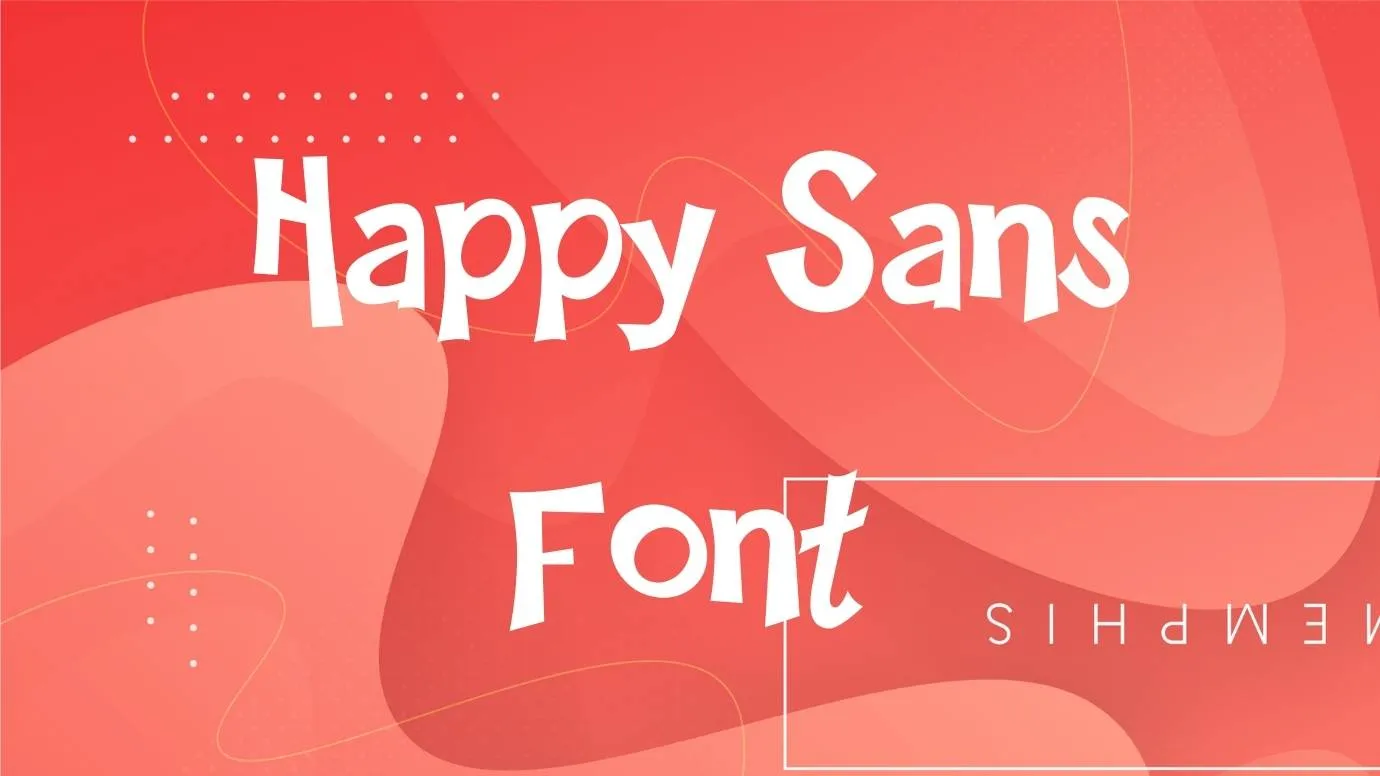
Happy Sans Font Family is an attractive and ornate typeface reminiscent of comic book style, named Happy Sans Font. Stephen Knose is the principal creator behind this font, having developed it within his own studio, Essqué Productions.
This typeface has many fashionable characters including uppercase, symbols, and punctuations. It gives a fantastic look to your design and projects due to its neat and clean lettering.
| Name | Happy Sans Font |
| Type | Fancy |
| Designer | Stephen Knouse |